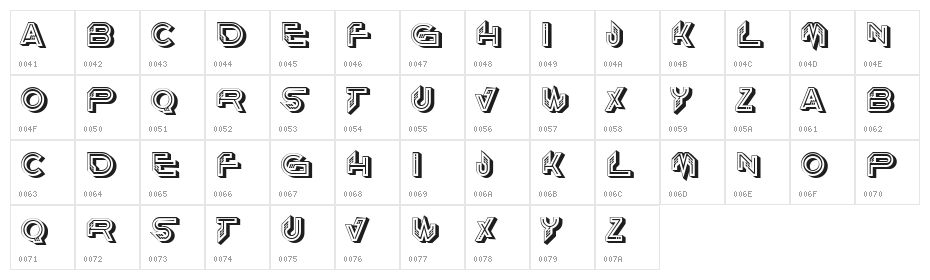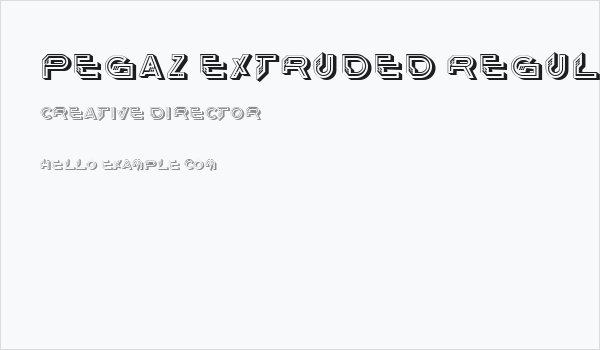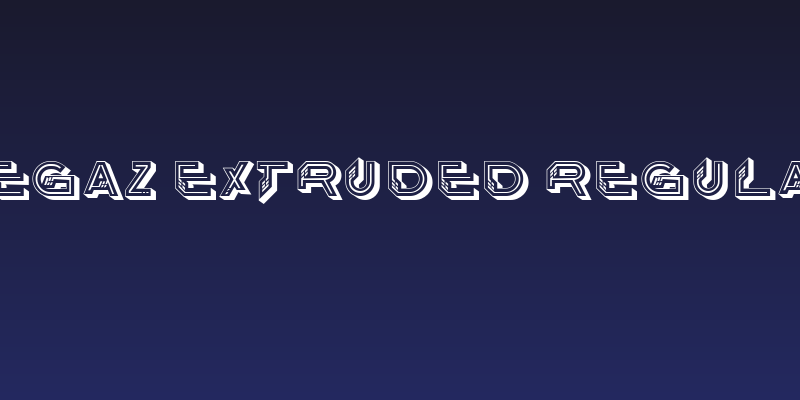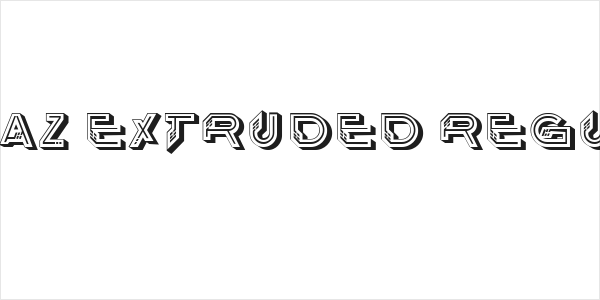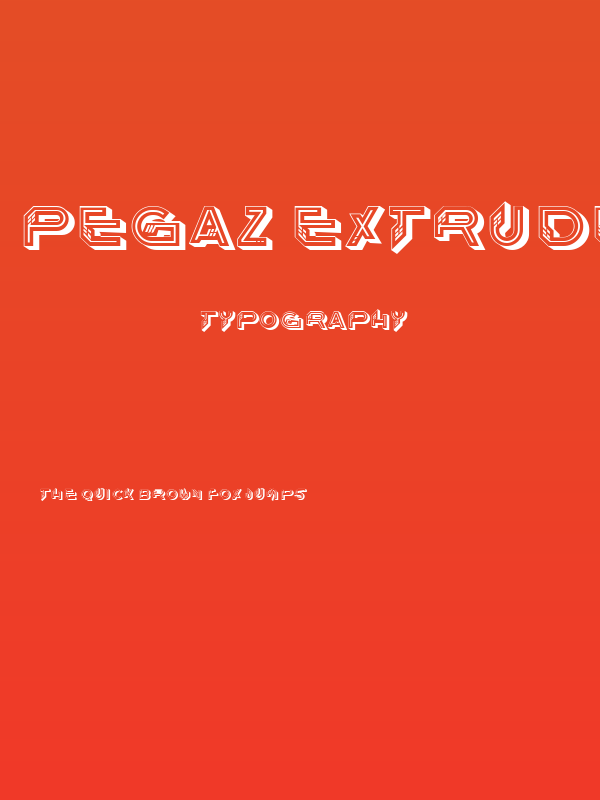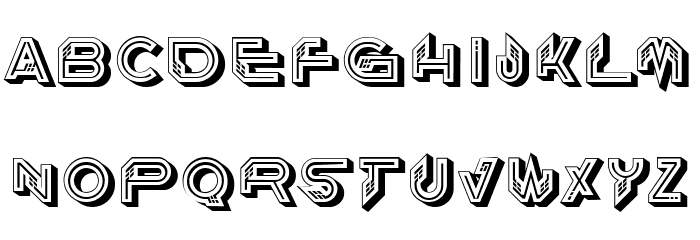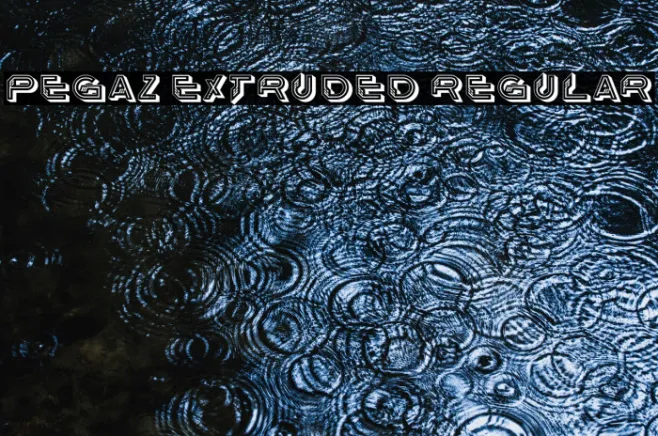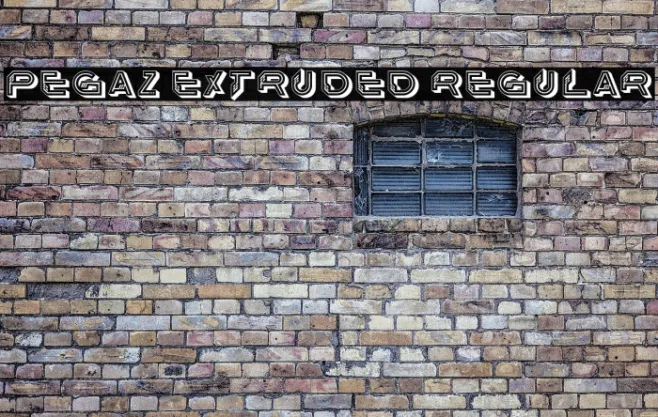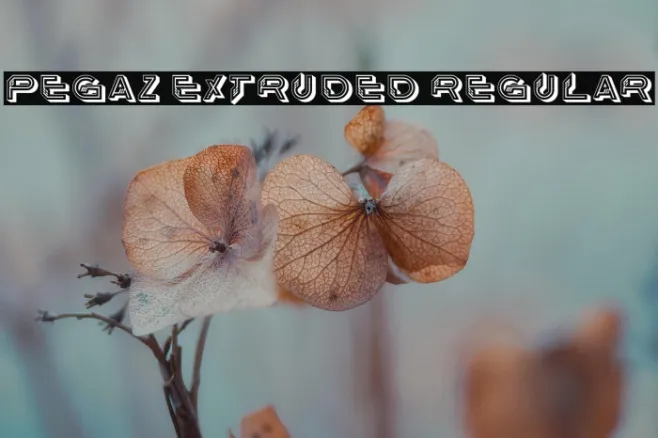
Pegaz Extruded Regular Font
Pegaz Extruded Regular Description
This font features a bold, three-dimensional design with an extruded effect that gives it a striking, impactful appearance. The characters are uppercase only, with a geometric structure and sharp angles that create a sense of depth and movement. The font's unique style is enhanced by its shadowing, which adds to its dimensionality and makes it stand out. The overall look is modern and dynamic, making it suitable for attention-grabbing headlines and titles. The spacing between characters is consistent, allowing for clear readability despite the complex design.
| Proposed Projects | Ideal for posters, logos, and branding materials that require a bold, eye-catching look. |